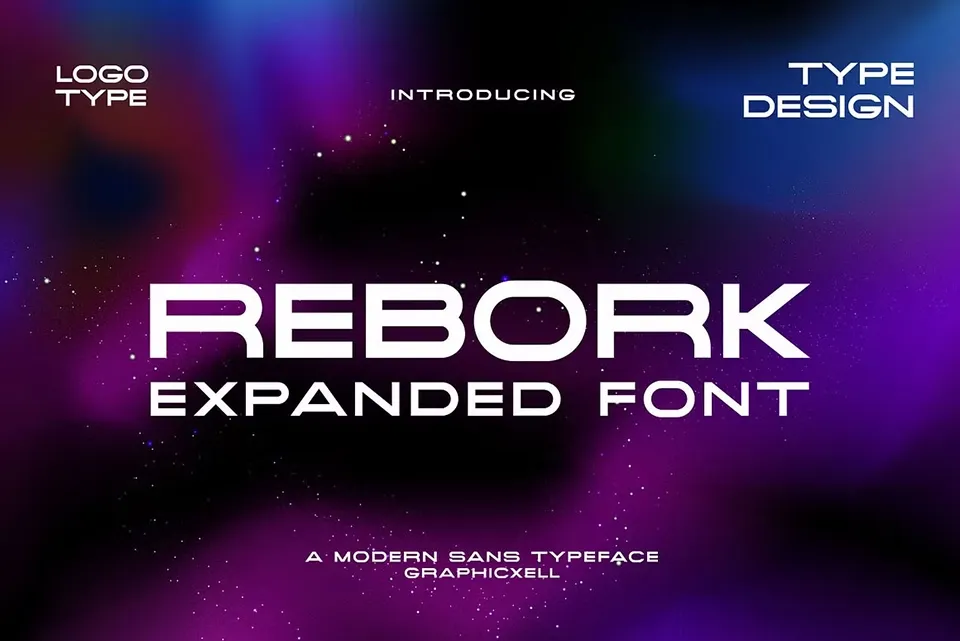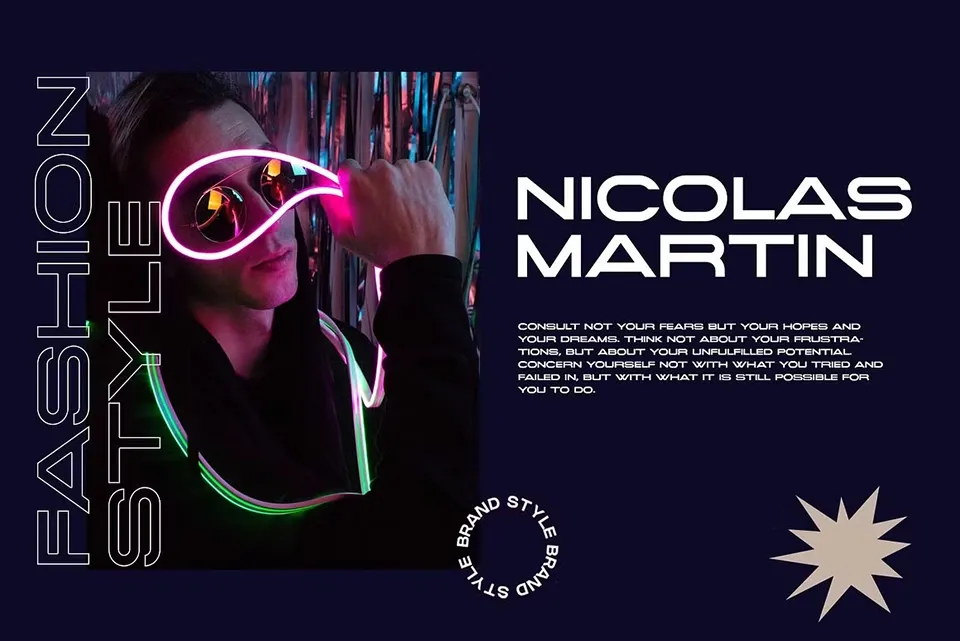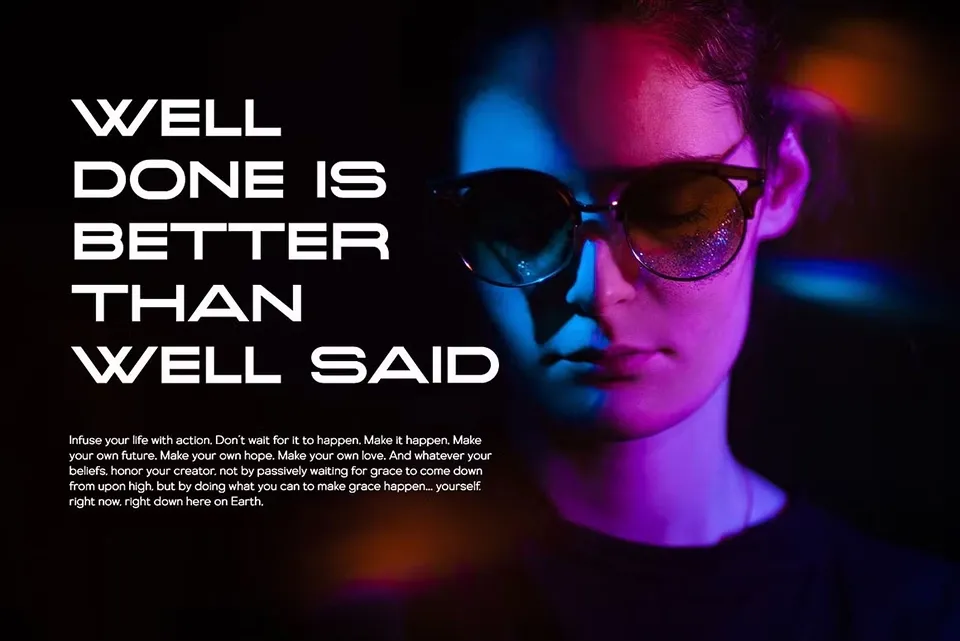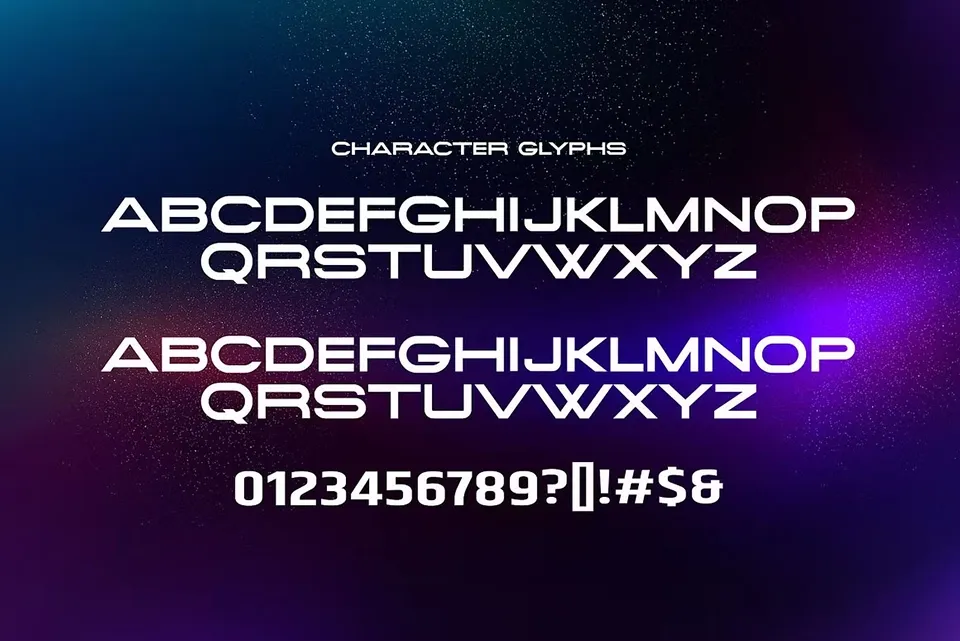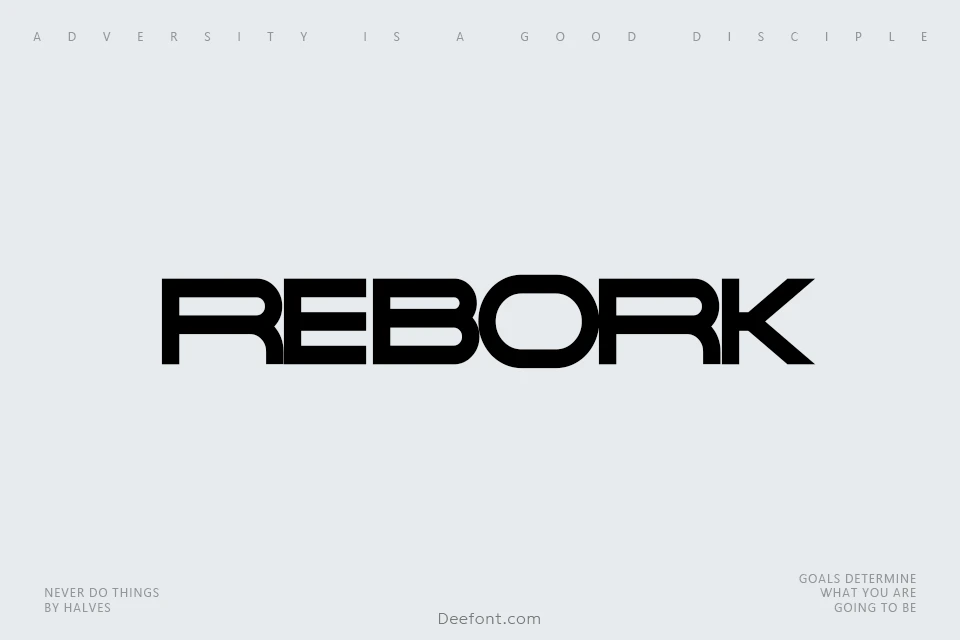
Rebork Font
Rebork Font is a modern sans-serif font created by Graphicxell. This typeface features a futuristic design inspired by advanced technology, characterized by its harmonious and balanced shape. Crafted with geometric precision for a minimalist yet outstanding appearance, Rebork offers a clean and contemporary look. It’s versatile, making it suitable for branding, logotypes, print designs, and even longer text passages where a modern feel is desired. An Expanded version is also available, providing additional stylistic options. A demo version is available for personal use, with a commercial license required for broader applications.